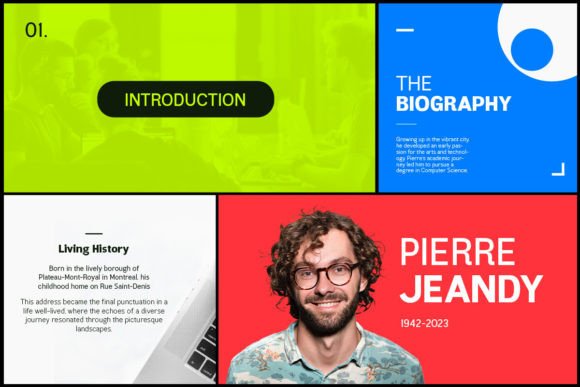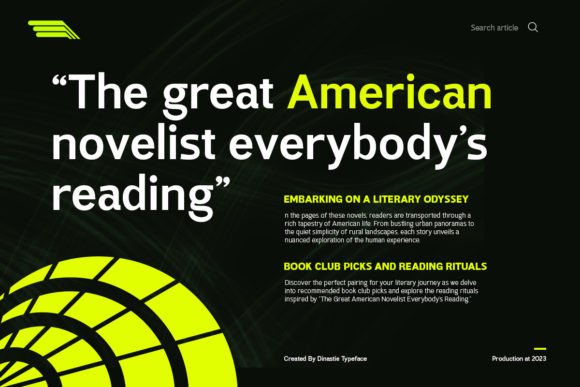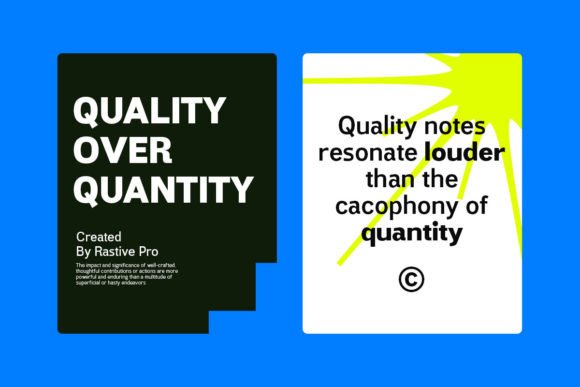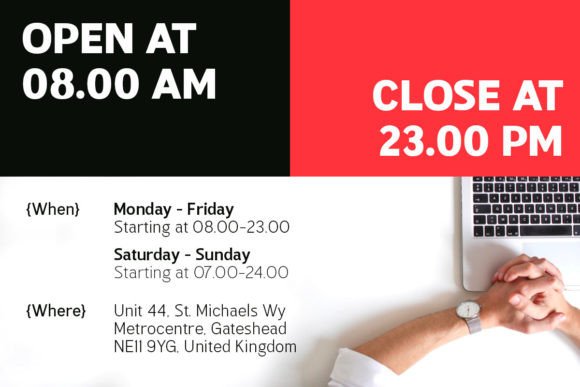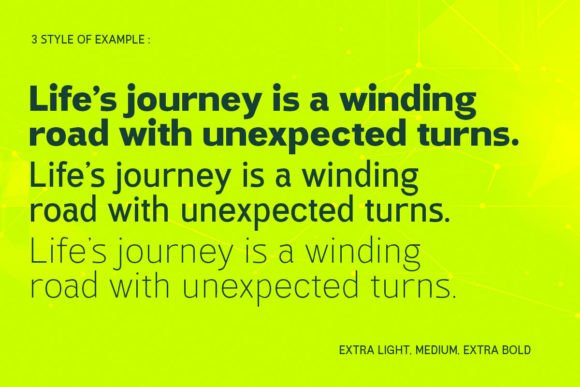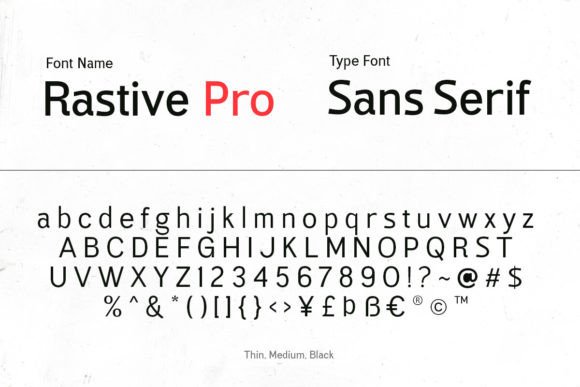
Introduction to Rastive Font Font
Fonts play a crucial role in design, and the Rastive Font font is a typeface that brings both character and versatility to any project. Whether you’re working on a branding project, a website, or a print design, the Rastive Font font offers a unique style that can elevate your work.
Introducing Rastive, a basic sans serif with a modern look, designed to offer a clean, versatile, and contemporary typeface suitable for a wide range of design applications.
With 9 distinct weights, from Thin to Black, it provides flexibility and adaptability for any project This font family also support multi language.
Key Features of Rastive Font Font
Why Choose Rastive Font Font?
The Rastive Font font is more than just a typeface – it’s a design tool that helps you communicate your message with style and clarity. Its unique character set and versatile design make it suitable for a wide range of applications, from elegant invitations to bold headlines.
With its carefully crafted letterforms and balanced proportions, the Rastive Font font ensures readability and visual appeal across all mediums.
What makes Rastive Font font special?
The Rastive Font font stands out with its unique design, exceptional readability, and versatility across various design applications.